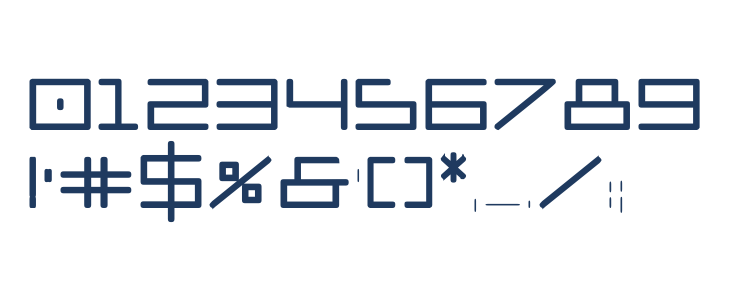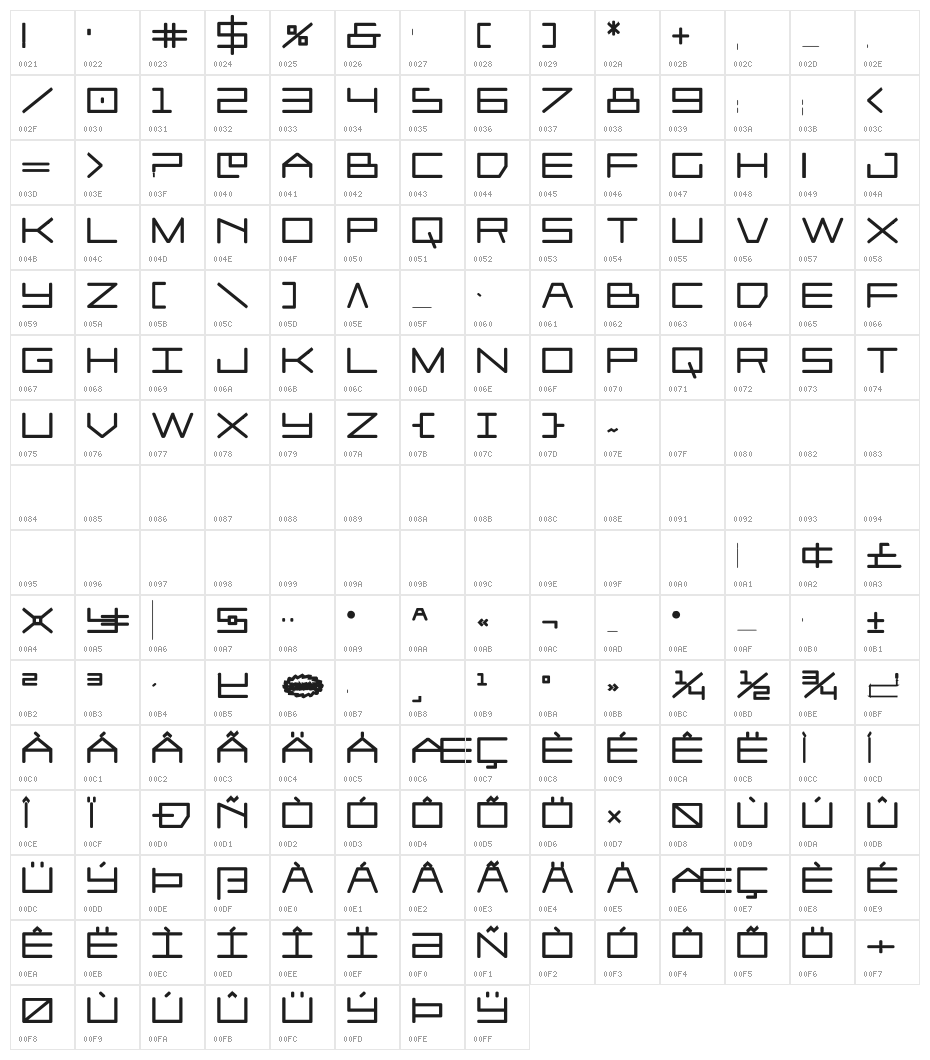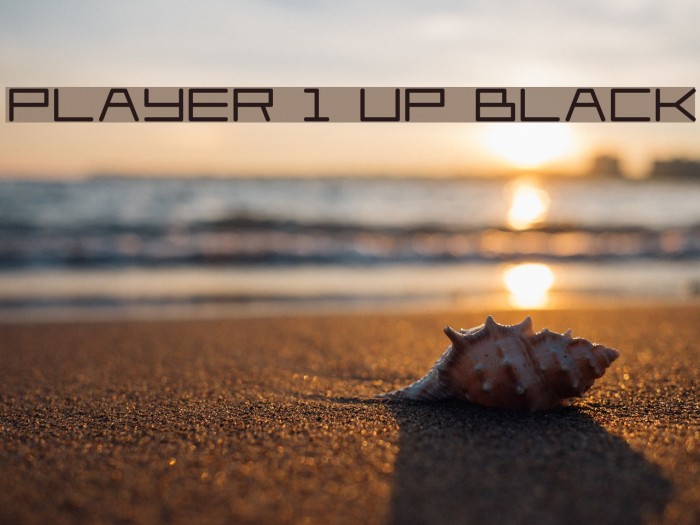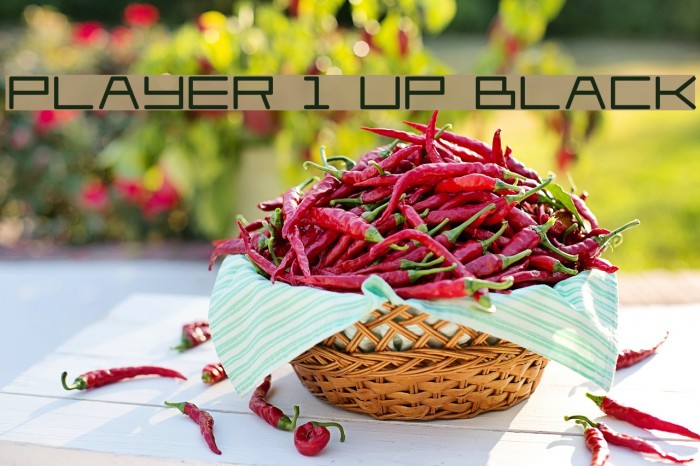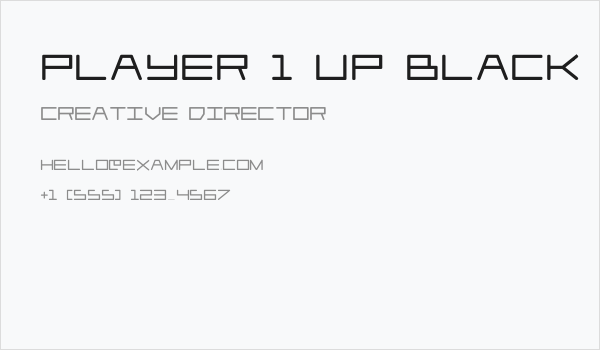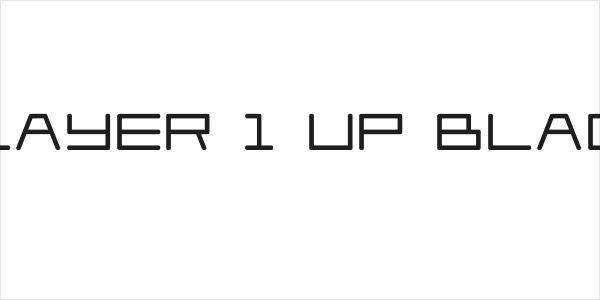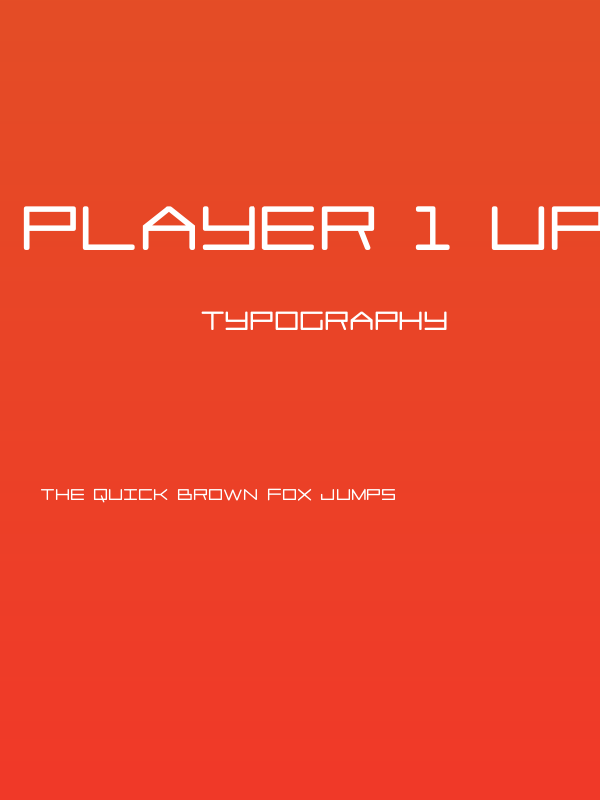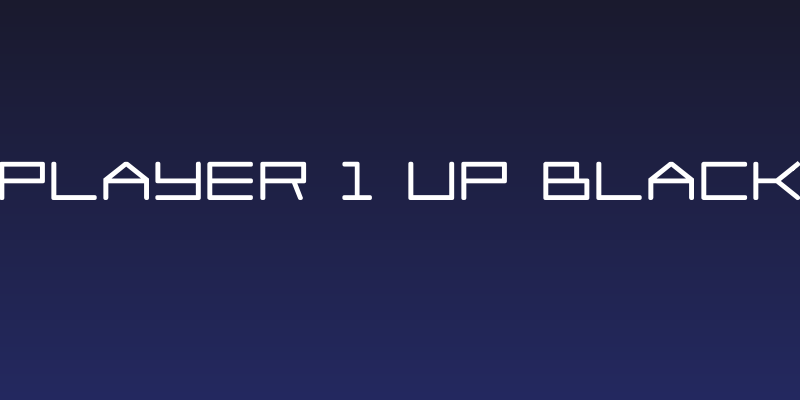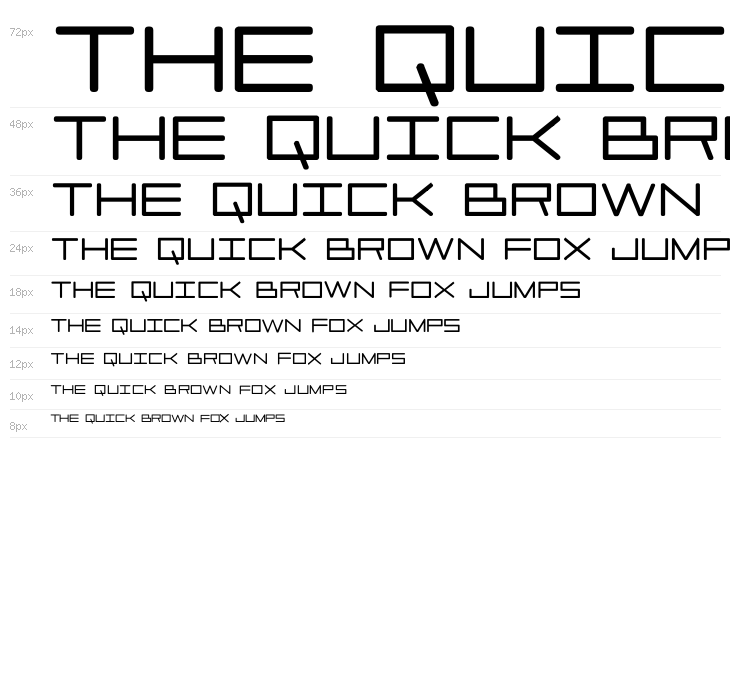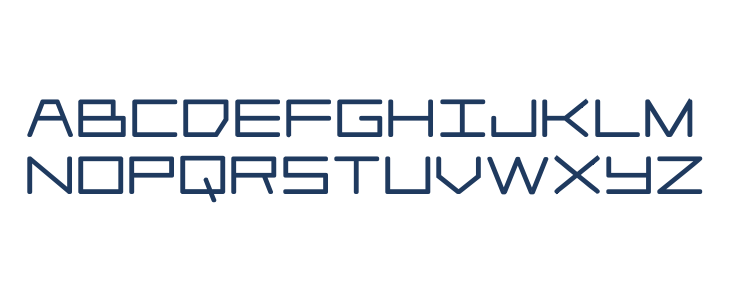
Player 1 Up Black Font
Player 1 Up Black Description
This font features a geometric and angular design, reminiscent of retro digital displays and arcade games. The characters are constructed with straight lines and sharp angles, giving it a futuristic and technical appearance. The uppercase letters are uniform in height, while the lowercase letters maintain a similar structure, ensuring consistency across the typeface. The numerals and special characters follow the same design principles, making them easily recognizable and cohesive with the overall style. The font's clean lines and distinct shapes make it suitable for projects that require a modern and digital aesthetic.